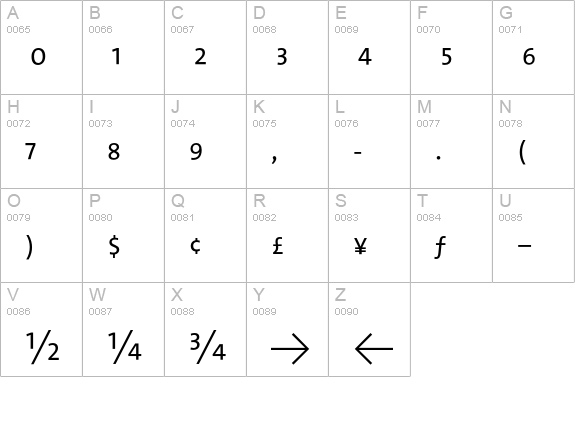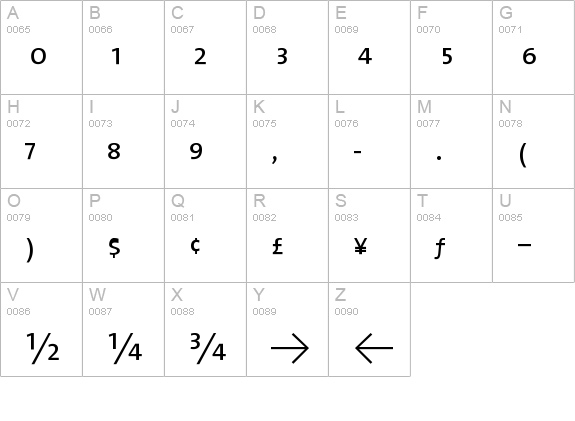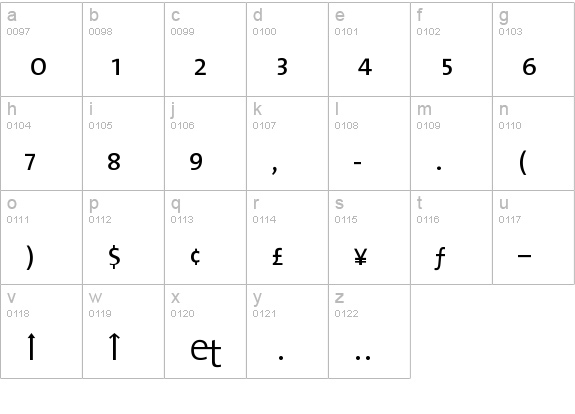
TheSans Light Expert Font Details
TheSans Light Expert is a refined, elegant variant in the TheSans typeface family \xE2\x80\x94 well suited to elegant body text, refined sub-headings, and luxury branding.
TheSans Light Expert font is a stunning typeface that exudes elegance and sophistication. Its sleek and modern design makes it perfect for a wide range of projects, from branding and advertising to website design and print materials. With its clean lines and balanced proportions, TheSans Light Expert font adds a touch of professionalism to any text. What sets TheSans Light Expert font apart is not only its impeccable aesthetics but also its versatility. This font is incredibly legible, making it easy for readers to consume and comprehend the text. Whether it's used for body copy or headlines, TheSans Light Expert font ensures that your message is delivered with clarity and impact. One of the most remarkable aspects of TheSans Light Expert font is that it is free. Yes, you read that right! This extraordinary font is freely available to download at FontsMarket.com. Now you can elevate your design projects without breaking the bank. TheSans Light Expert font offers you the opportunity to access a premium font without any cost, giving you the freedom to create stunning visuals without any constraints. With its wide range of weights and styles, TheSans Light Expert font offers unparalleled versatility. Whether you need a bold and eye-catching headline or a subtle and understated body text, this font has got you covered. The various weights and styles allow you to experiment and find the perfect combination that suits your project's needs. TheSans Light Expert font is a true masterpiece that will elevate your design to new heights. Its clean and timeless design ensures that your work stands out from the crowd, leaving a lasting impression on your audience. And the fact that it is freely available for download at FontsMarket.com makes it an absolute must-have for any designer or creative professional. So, why wait? Discover the endless possibilities that TheSans Light Expert font offers and download it for free at FontsMarket.com today. Unleash your creativity and let TheSans Light Expert font take your design projects to the next level.